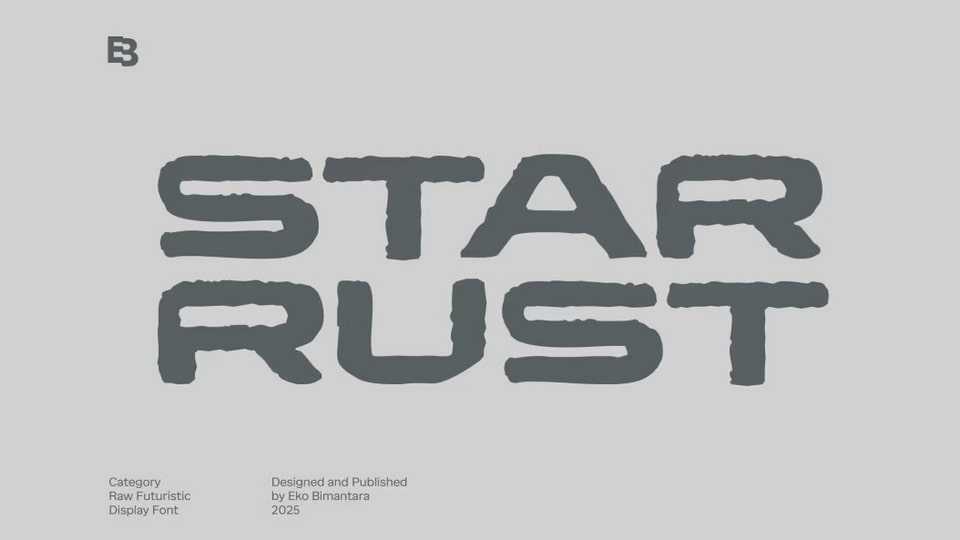
Download Star Rust font, a raw futuristic display typeface that blends sci-fi aesthetics with a rugged, eroded appearance. The letterforms are geometric yet softened by rough textures and uneven edges.